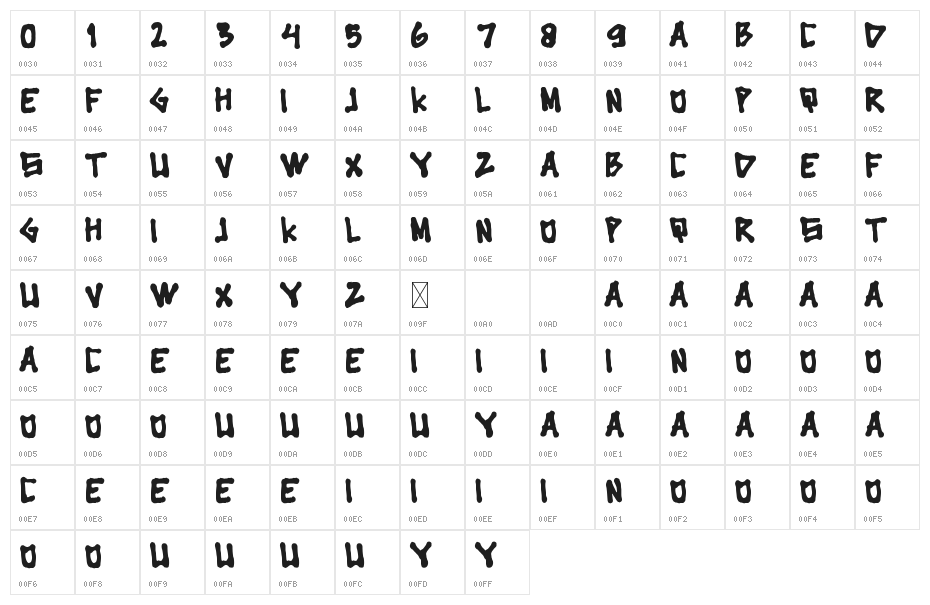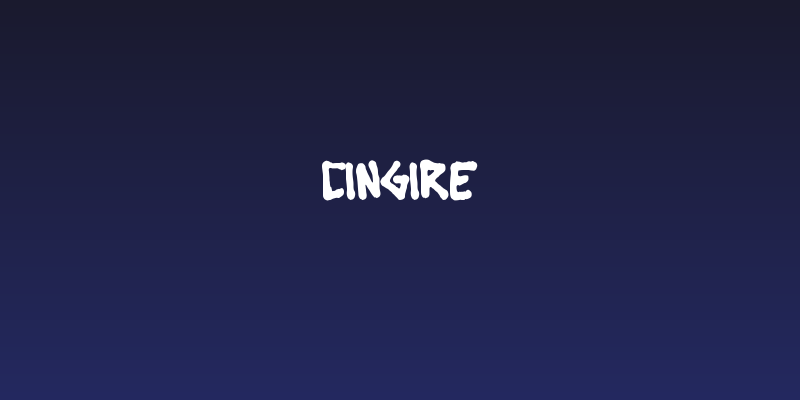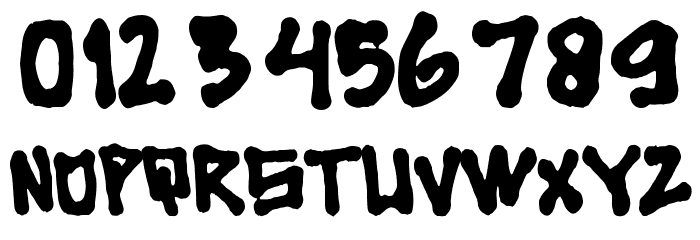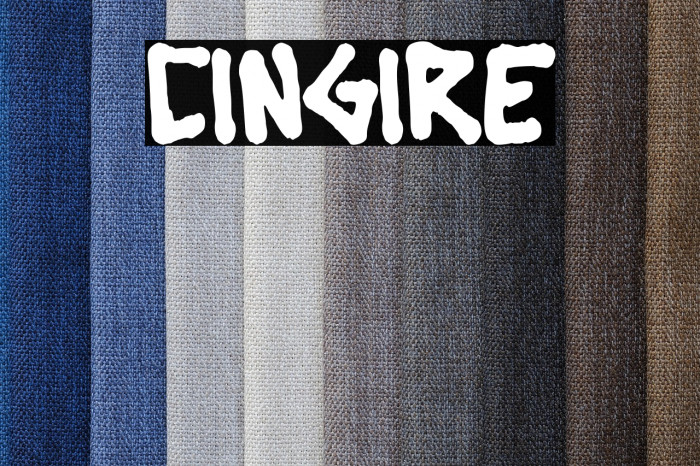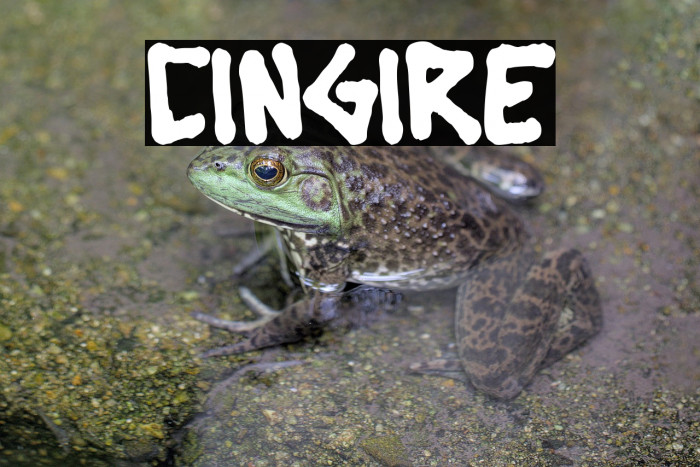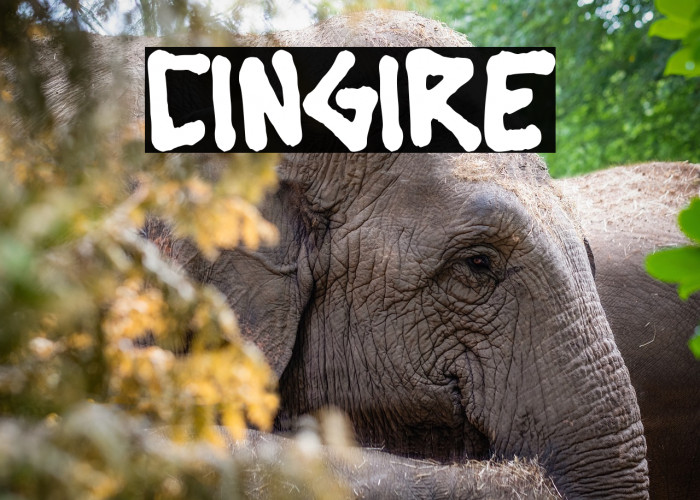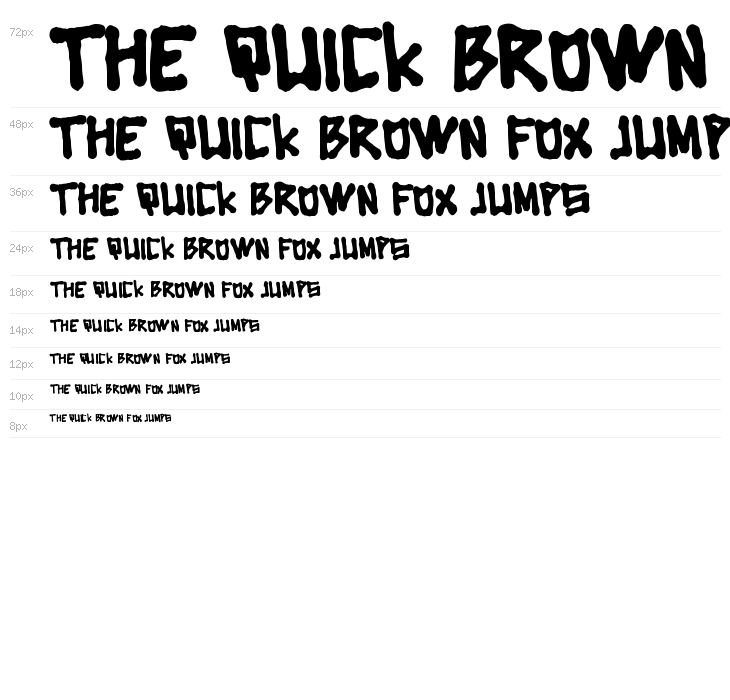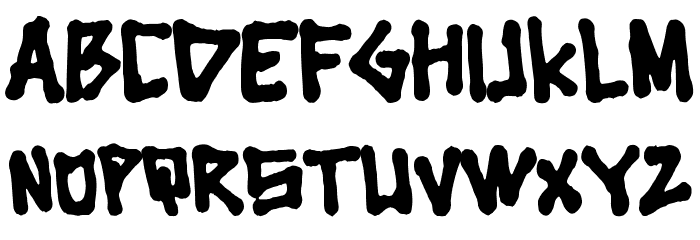
Cingire Font
Cingire Description
This font features a bold, hand-drawn style with a playful and energetic appearance. The characters are thick and uneven, giving a sense of spontaneity and creativity. The strokes are irregular, with varying thickness that adds to the font's dynamic and lively feel. The overall look is informal and artistic, making it suitable for projects that require a personal touch or a sense of fun. The uppercase and lowercase letters maintain a consistent style, while the numbers and special characters integrate seamlessly with the alphabet, ensuring versatility in design applications.